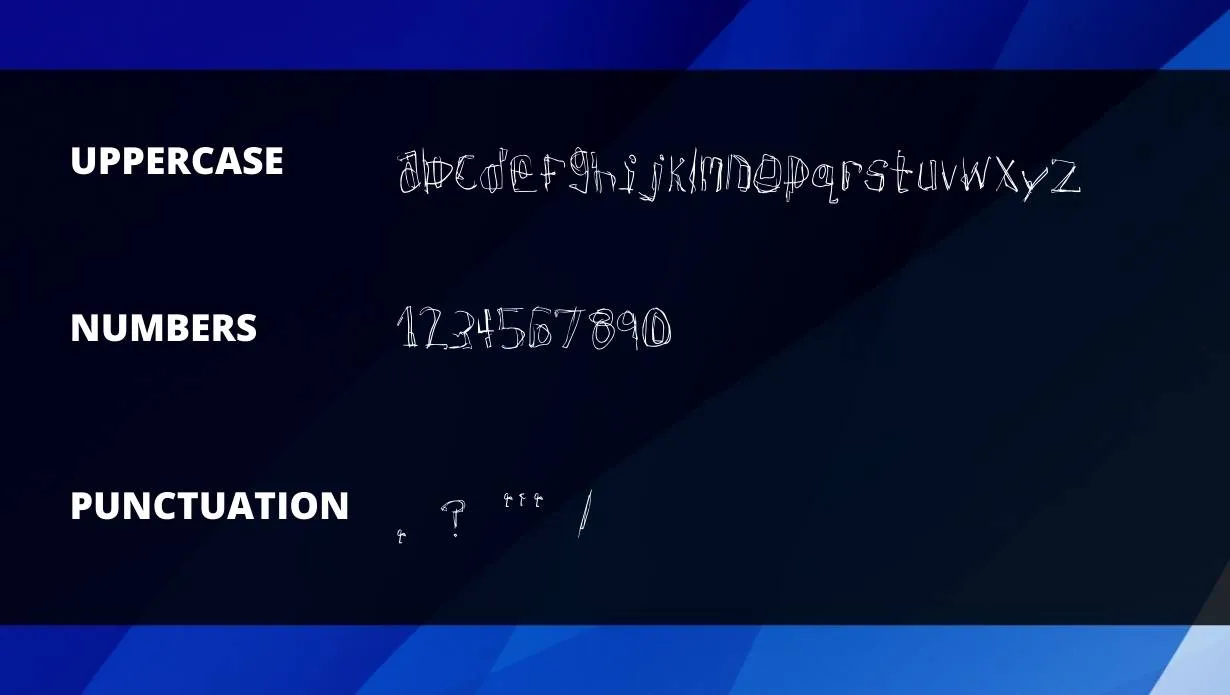
Donner Font Free Download
Donner Font is a script font that was created by Vernom Adams in 2010. The font is named after the German word for thunder, and it is inspired by the Art Deco style of the 1920s. The font has a strong presence and is sure to make a statement.
If you want to compare this typeface style with the light font then it would be the best combination for you.
| Designer | Vernom Adams |